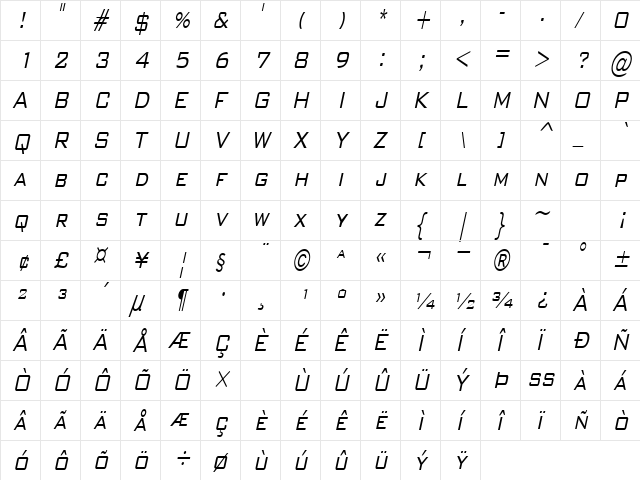
WallStreetCondensed Italic Font Preview
Design Context for WallStreetCondensed Typeface
WallStreetCondensed takes a measured approach to typography — its balanced proportions and neutral character make it a reliable workhorse for both digital and print work. The slanted form adds forward momentum and visual energy. The condensed width makes it efficient for tight spaces without sacrificing legibility.
Pro Tip: Use WallStreetCondensed for emphasis, pull quotes, and subheadings where its slanted energy can add rhythm to the layout.